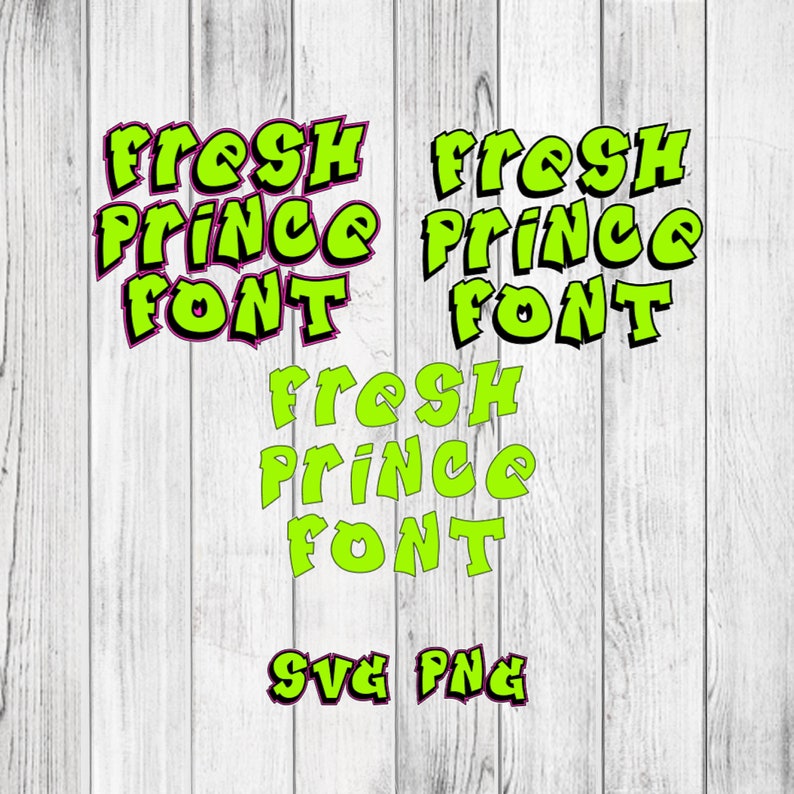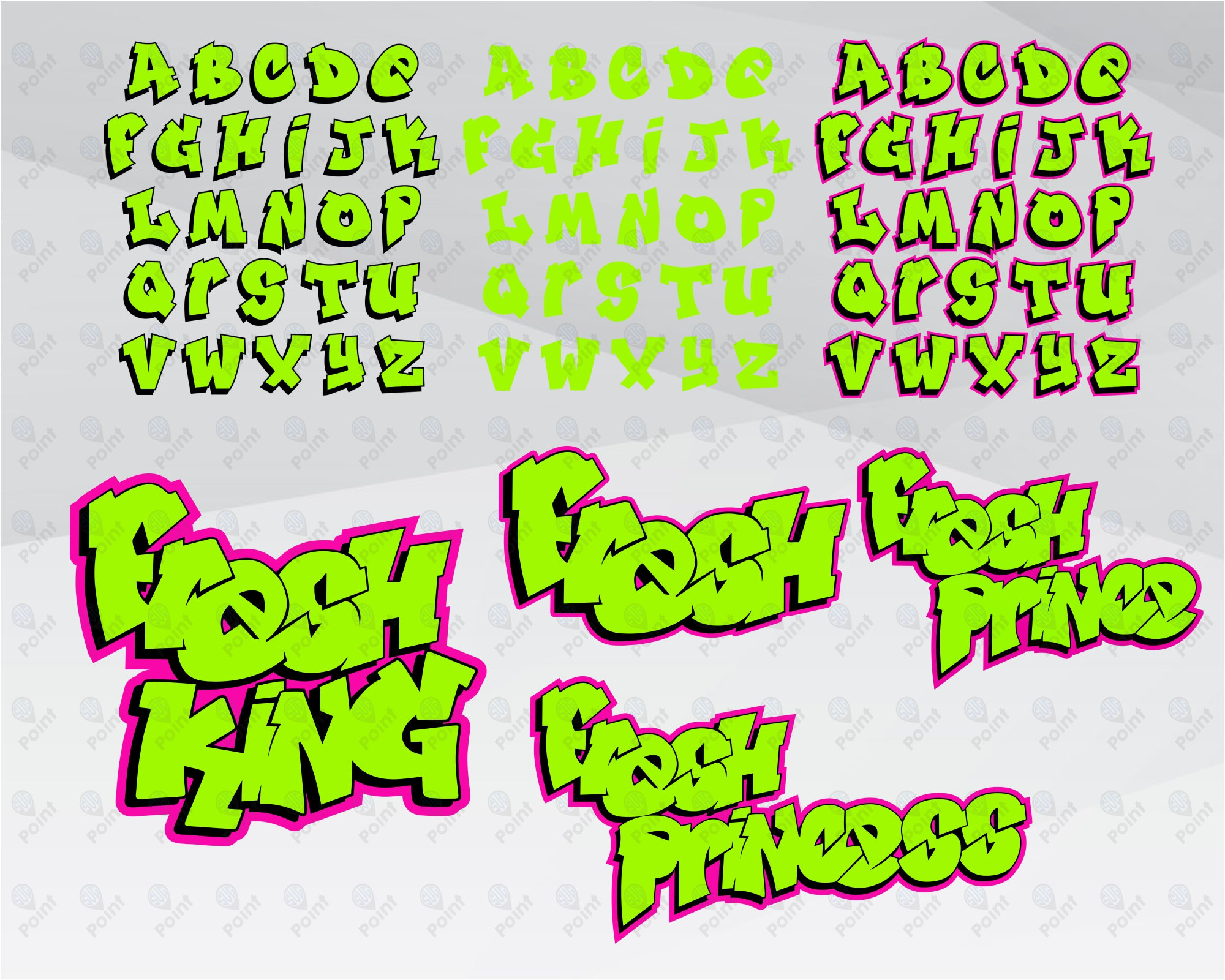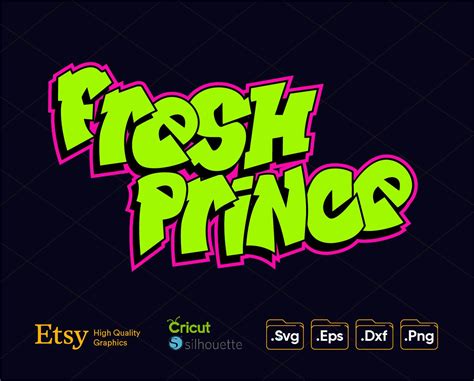
Fresh Prince Font
Fresh Prince Font - Web fresh prince of bel air font is a logo typeface that we have seen in its television series. Web fresh prince of bel air font is a logo typeface that we have seen in its television series. Web anyone know of a font similar or copied like the fresh prince logo? Web fresh prince font is a unpaid or free typeface that you can use in your graphic designs. There is no need of any license, signup or regurgitation to use this font for your. Web fresh prince of bel air font. I know its a custom logo but wondered if there were any close matches.
Web fresh prince of bel air font. Web fresh prince font is a unpaid or free typeface that you can use in your graphic designs. I know its a custom logo but wondered if there were any close matches. Web anyone know of a font similar or copied like the fresh prince logo? There is no need of any license, signup or regurgitation to use this font for your. Web fresh prince of bel air font is a logo typeface that we have seen in its television series. Web fresh prince of bel air font is a logo typeface that we have seen in its television series.
Web fresh prince of bel air font. Web anyone know of a font similar or copied like the fresh prince logo? There is no need of any license, signup or regurgitation to use this font for your. Web fresh prince of bel air font is a logo typeface that we have seen in its television series. I know its a custom logo but wondered if there were any close matches. Web fresh prince of bel air font is a logo typeface that we have seen in its television series. Web fresh prince font is a unpaid or free typeface that you can use in your graphic designs.
Web fresh prince of bel air font. Web fresh prince of bel air font is a logo typeface that we have seen in its television series. Web fresh prince of bel air font is a logo typeface that we have seen in its television series. Web fresh prince font is a unpaid or free typeface that you can use in.
Web fresh prince of bel air font is a logo typeface that we have seen in its television series. Web fresh prince of bel air font is a logo typeface that we have seen in its television series. I know its a custom logo but wondered if there were any close matches. Web anyone know of a font similar or.
There is no need of any license, signup or regurgitation to use this font for your. Web fresh prince font is a unpaid or free typeface that you can use in your graphic designs. Web fresh prince of bel air font is a logo typeface that we have seen in its television series. Web fresh prince of bel air font.
There is no need of any license, signup or regurgitation to use this font for your. Web anyone know of a font similar or copied like the fresh prince logo? Web fresh prince of bel air font. I know its a custom logo but wondered if there were any close matches. Web fresh prince font is a unpaid or free.
Web fresh prince font is a unpaid or free typeface that you can use in your graphic designs. Web fresh prince of bel air font is a logo typeface that we have seen in its television series. There is no need of any license, signup or regurgitation to use this font for your. Web fresh prince of bel air font..
Web fresh prince of bel air font is a logo typeface that we have seen in its television series. Web anyone know of a font similar or copied like the fresh prince logo? There is no need of any license, signup or regurgitation to use this font for your. Web fresh prince of bel air font. Web fresh prince font.
Web fresh prince of bel air font is a logo typeface that we have seen in its television series. Web fresh prince font is a unpaid or free typeface that you can use in your graphic designs. Web fresh prince of bel air font is a logo typeface that we have seen in its television series. Web anyone know of.
Web anyone know of a font similar or copied like the fresh prince logo? Web fresh prince font is a unpaid or free typeface that you can use in your graphic designs. There is no need of any license, signup or regurgitation to use this font for your. Web fresh prince of bel air font is a logo typeface that.
There is no need of any license, signup or regurgitation to use this font for your. Web fresh prince of bel air font is a logo typeface that we have seen in its television series. Web fresh prince font is a unpaid or free typeface that you can use in your graphic designs. Web fresh prince of bel air font.
Web fresh prince of bel air font is a logo typeface that we have seen in its television series. Web fresh prince of bel air font. There is no need of any license, signup or regurgitation to use this font for your. Web anyone know of a font similar or copied like the fresh prince logo? I know its a.
Web Fresh Prince Of Bel Air Font.
Web fresh prince of bel air font is a logo typeface that we have seen in its television series. Web anyone know of a font similar or copied like the fresh prince logo? There is no need of any license, signup or regurgitation to use this font for your. I know its a custom logo but wondered if there were any close matches.
Web Fresh Prince Font Is A Unpaid Or Free Typeface That You Can Use In Your Graphic Designs.
Web fresh prince of bel air font is a logo typeface that we have seen in its television series.